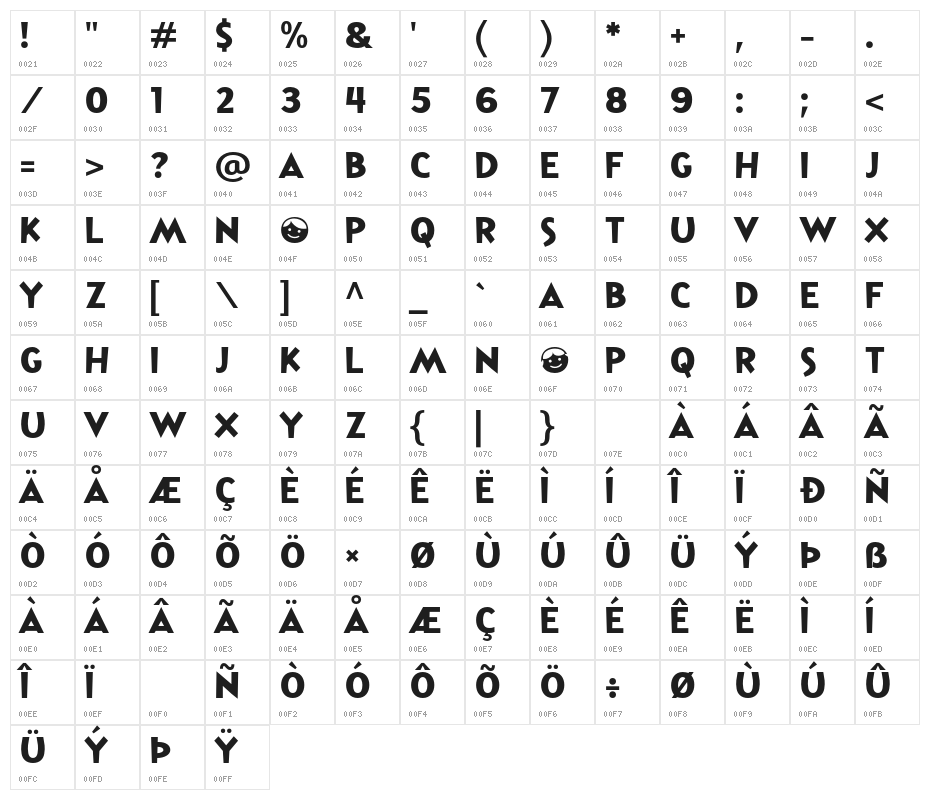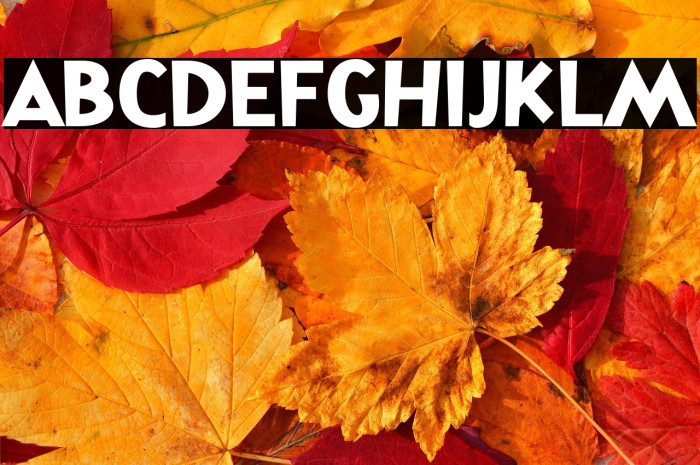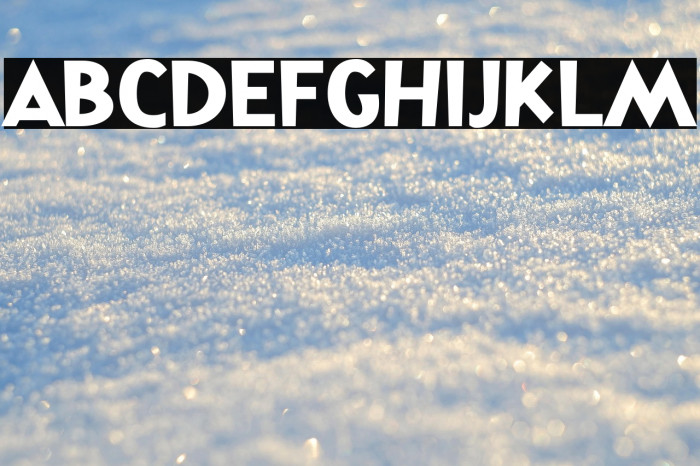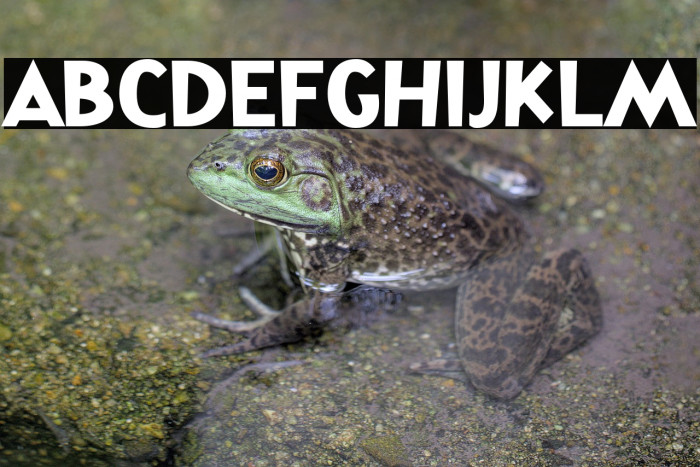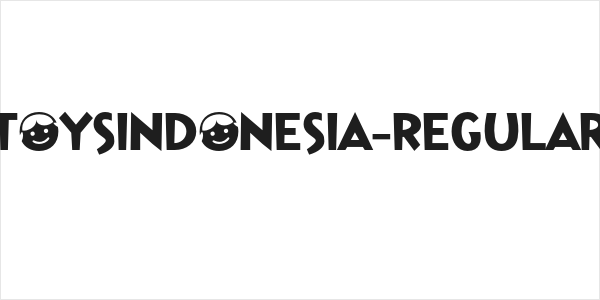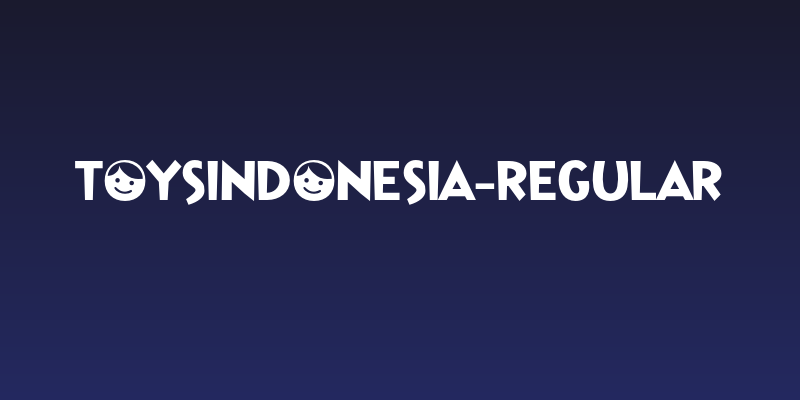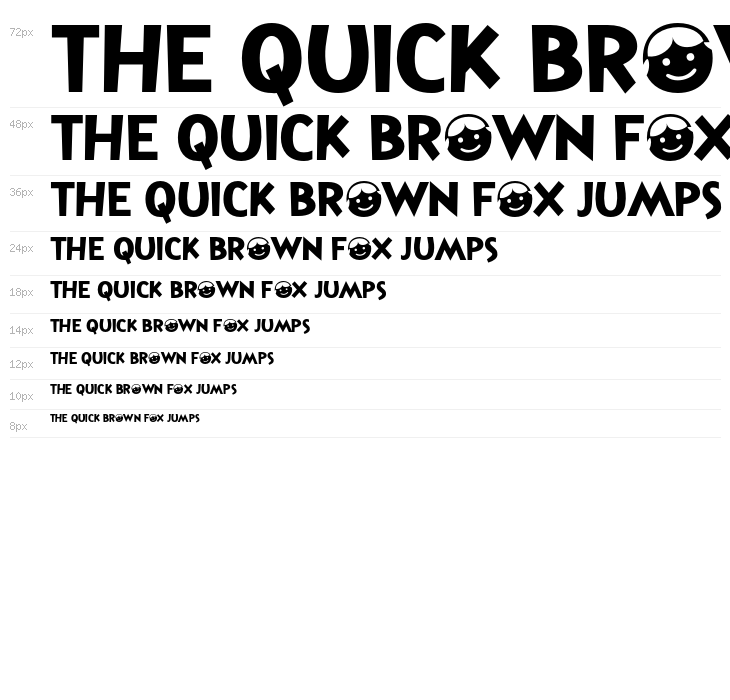
ToysIndonesia-Regular Font
ToysIndonesia-Regular Description
This playful and bold font features a unique and whimsical design, perfect for capturing attention. The uppercase letters are characterized by their thick strokes and geometric shapes, while the lowercase letters maintain a consistent style with a slightly rounded appearance. The numbers are bold and easy to read, making them suitable for various applications. Special characters are included, adding versatility to the font. The overall style is modern and fun, with a touch of creativity that makes it ideal for children's projects or playful branding.
| Overall Style | Modern, Playful |
| Proposed Projects | Ideal for children's books, toy packaging, playful branding, and creative posters. |